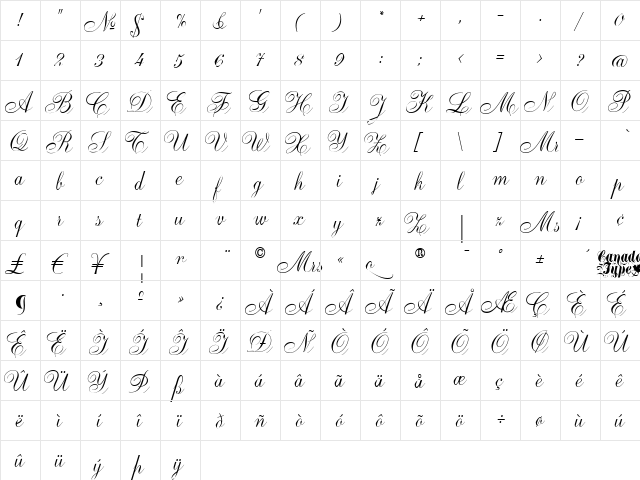
Ambassador Script Alt Caps Regular
| Foundry | Canada Type |
| Designer | Rebecca Alaccari |
Design Context for Ambassador Script Alt Caps Typeface
Ambassador Script Alt Caps flows with the natural rhythm of handwritten lettering, making it ideal for designs that call for warmth and personal expression.
Font Pairing: Combine Ambassador Script Alt Caps with a simple geometric sans for maximum contrast — the tension between flowing curves and clean structure is a classic typographic pairing.
Pro Tip: Pair Ambassador Script Alt Caps with a clean sans-serif for supporting text. The contrast between fluid script and geometric structure creates an elegant typographic hierarchy.